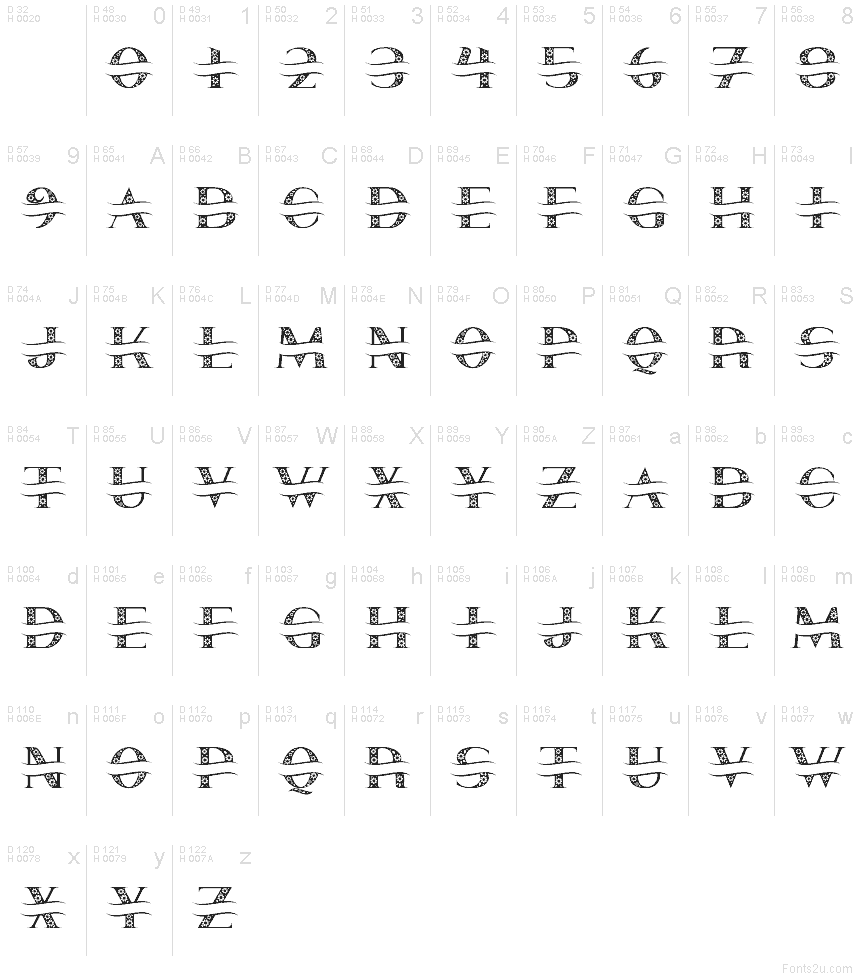
Love Flow font by Edy Wiyono is a free decorative display typeface that feels like a handwritten love note floating on water. Tall, elegant letters are crossed by soft, wavy strokes, while a dotted inner texture gives each character a delicate, hand-stippled charm. The result is romantic, dreamy, and slightly whimsical, as if your words are drifting along a river of ink.
Using Love Flow, you can instantly add a storybook sense of romance to wedding invitations, Valentine’s cards, save-the-date graphics, spa or wellness logos, gift packaging, and dreamy social media quotes. This free font really shines at larger sizes, where the flowing lines and intricate dots stay crisp. For supporting text, pair it with a simple, neutral sans serif to let Love Flow carry the emotion in your headlines.